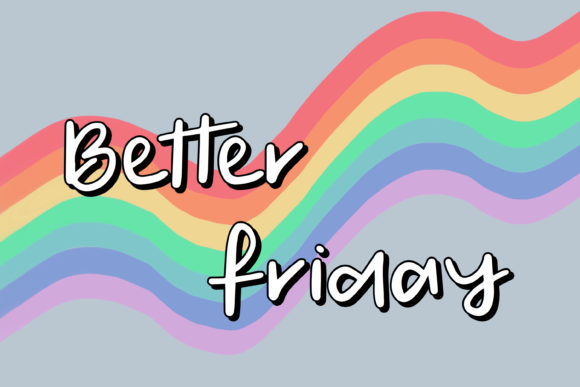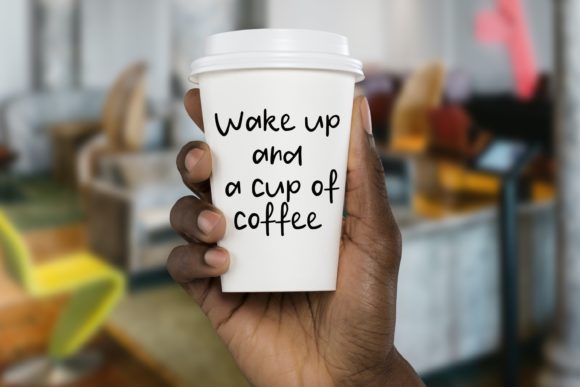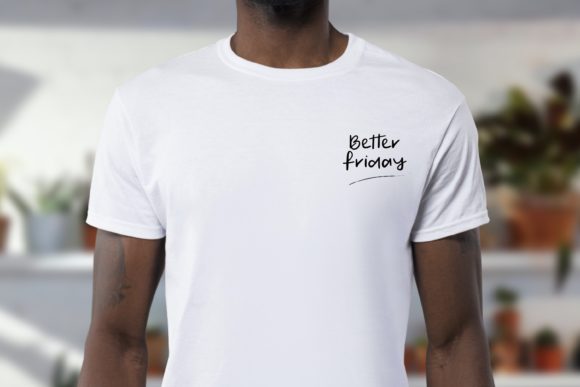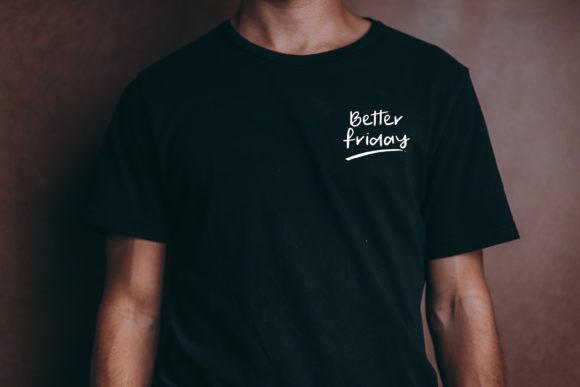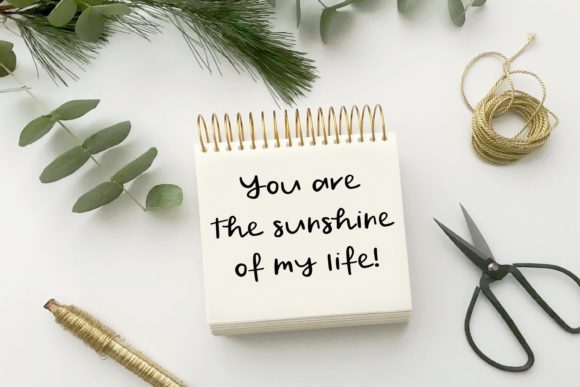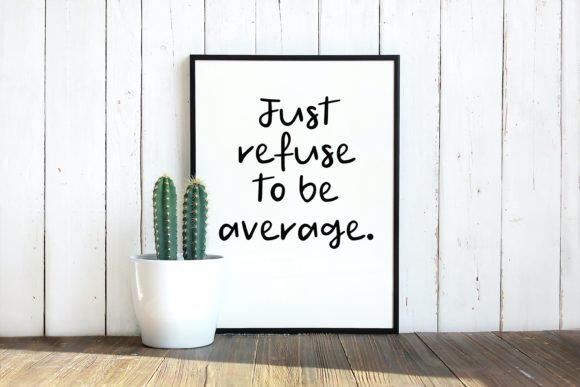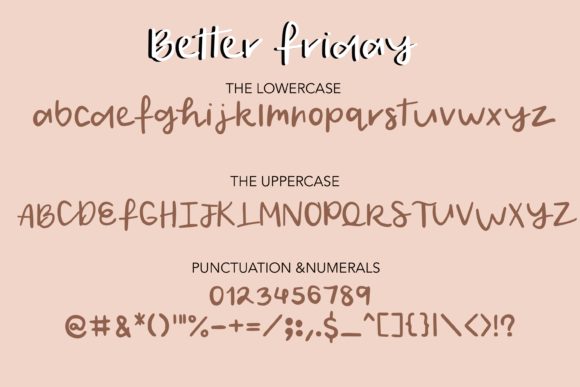
Better Friday Font
About Better Friday Font
Better Friday is a stylish handwritten script. It features a relax and trendy feel. Get inspired by Better Friday and use it for creating amazing logos, banners, flyers, social media posts and much more!